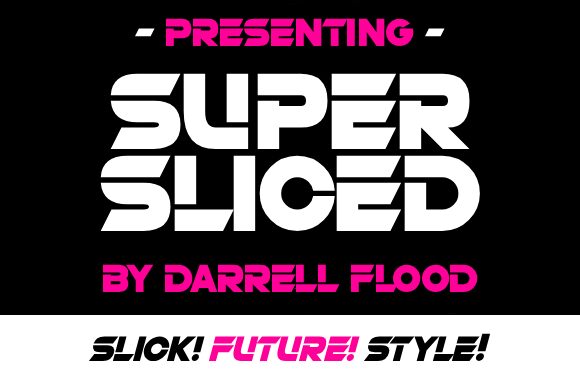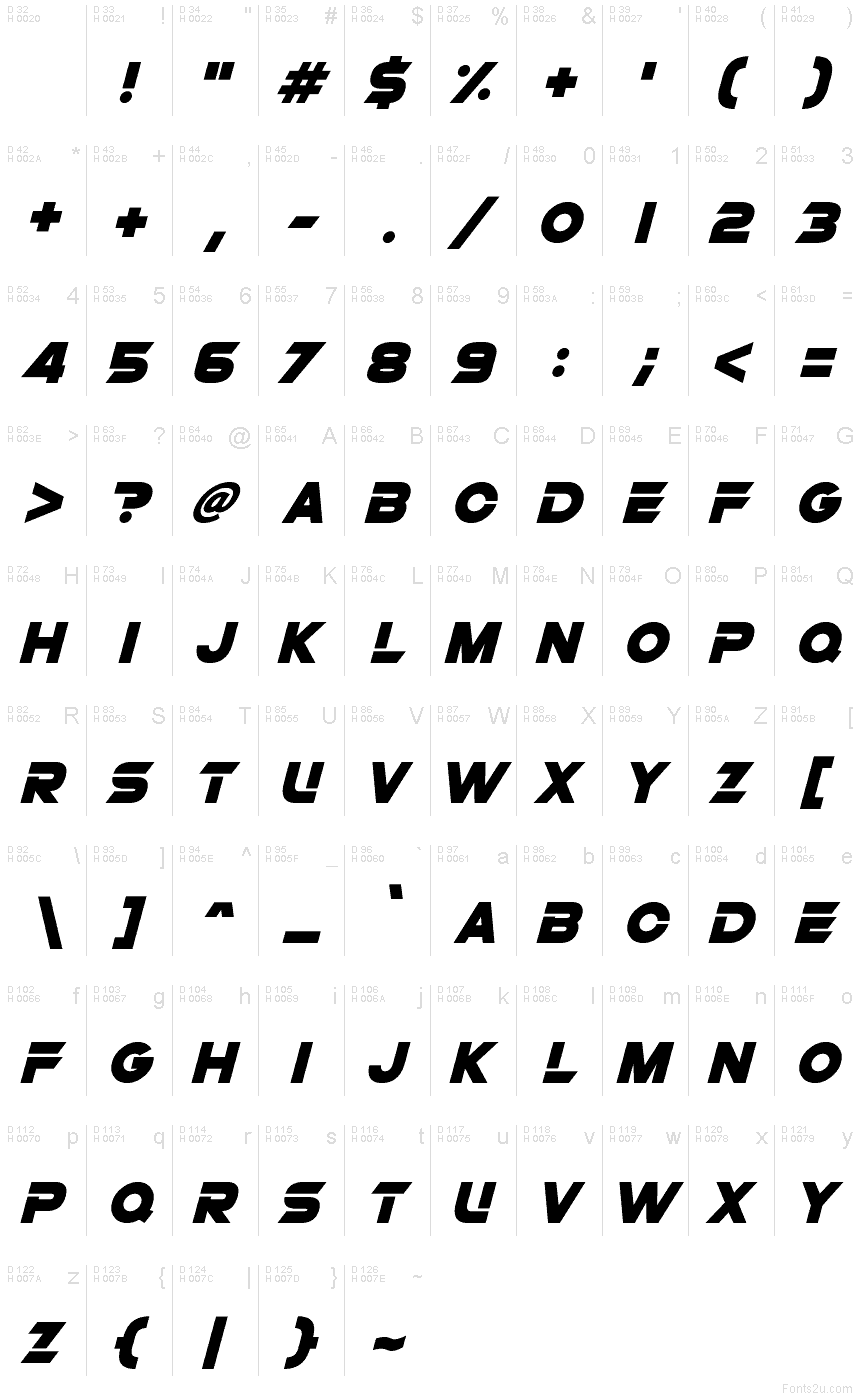
Super Sliced Italic
Super Sliced Italic font by Hawtpixel is a free futuristic display font. Built on the Super Sliced family’s hard-angled momentum, its forward-leaning forms and razor-cut gaps create the feeling of speed even at rest. The strokes are bold and tightly packed, so words lock together like bodywork on a race car—sleek, fast, and slightly dangerous.
Using Super Sliced Italic, headlines snap into motion for esports branding, racing posters, sci‑fi titles, tech event graphics, energy drink packaging, and kinetic social promos. The rhythmic slashes break light like chrome, adding instant drama in motion graphics and app splash screens. For balance, pair this free font with a clean geometric sans in a lighter weight, and track it slightly for larger titles.